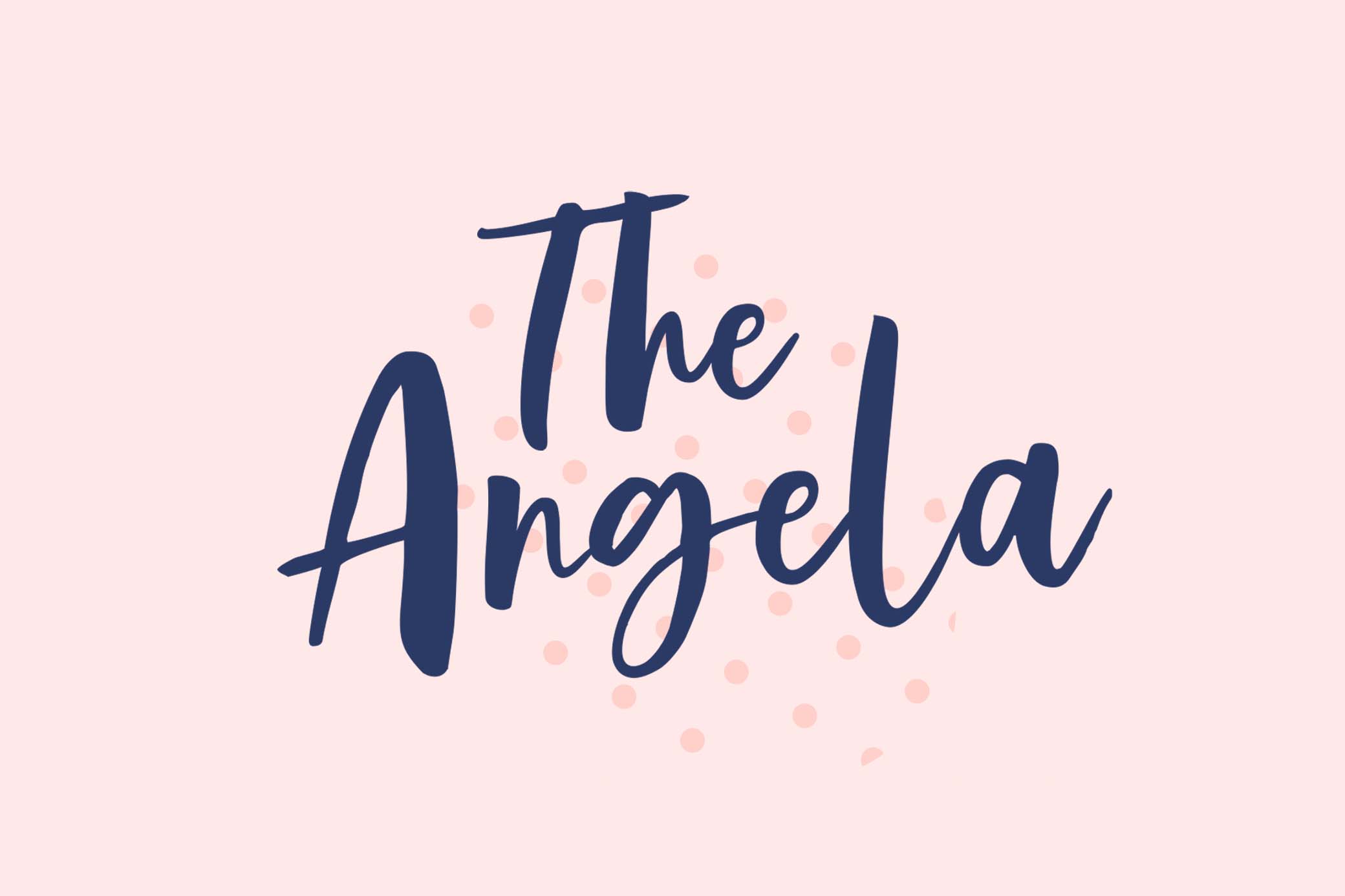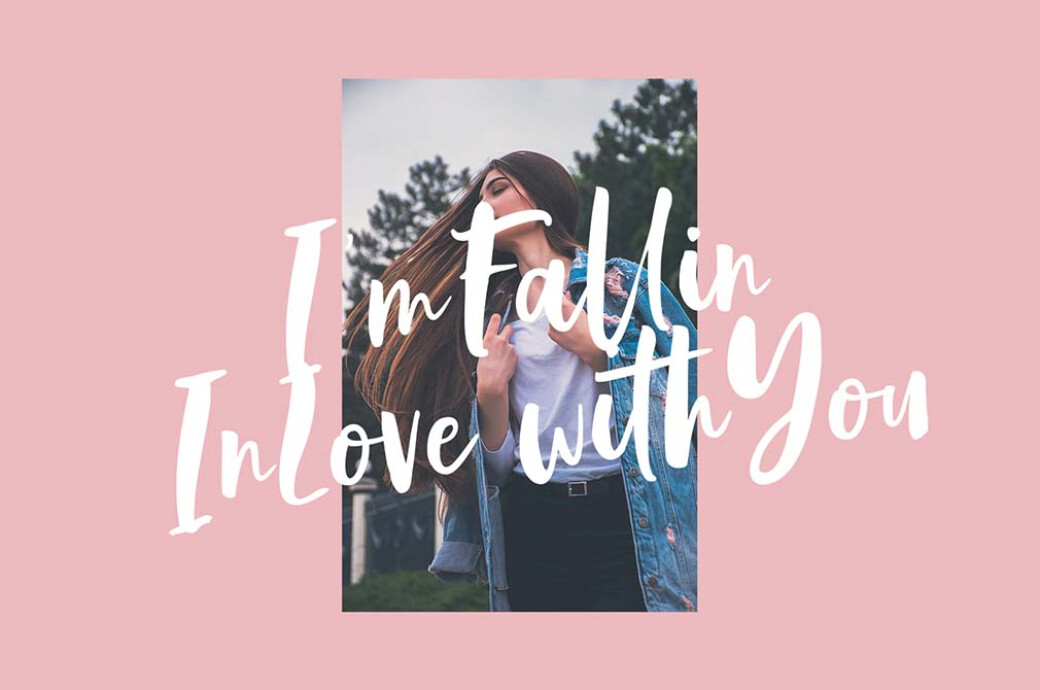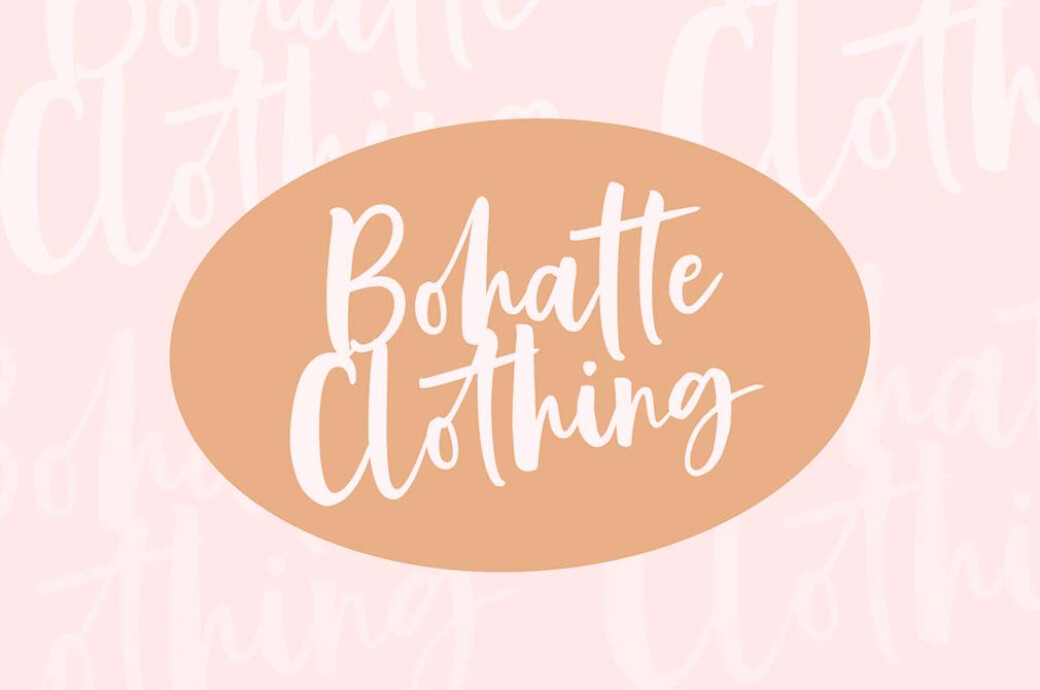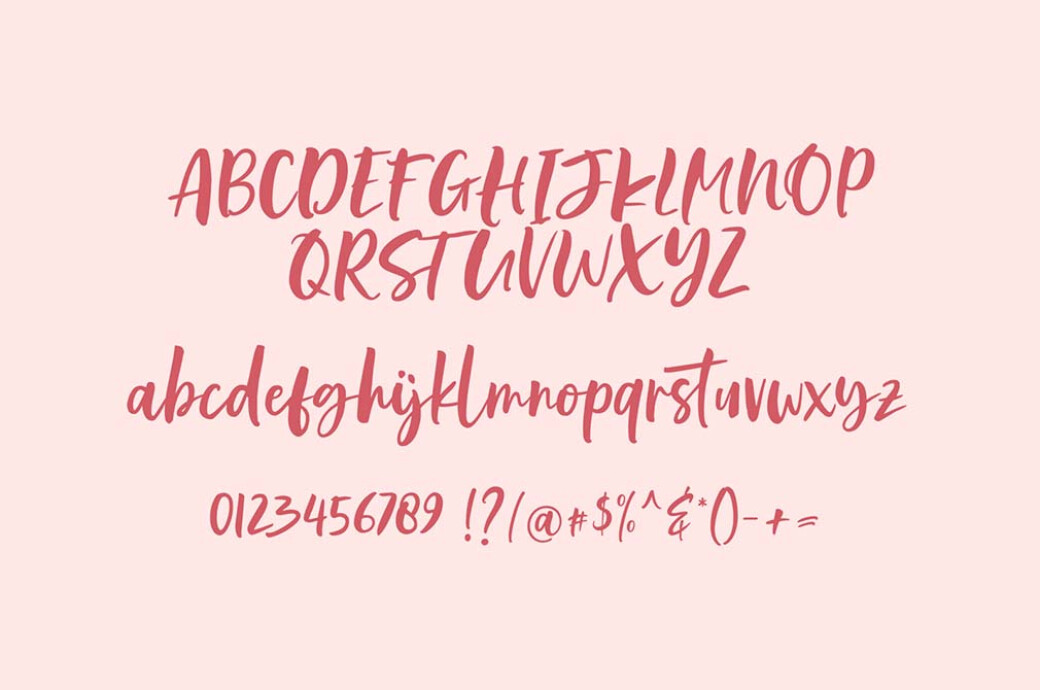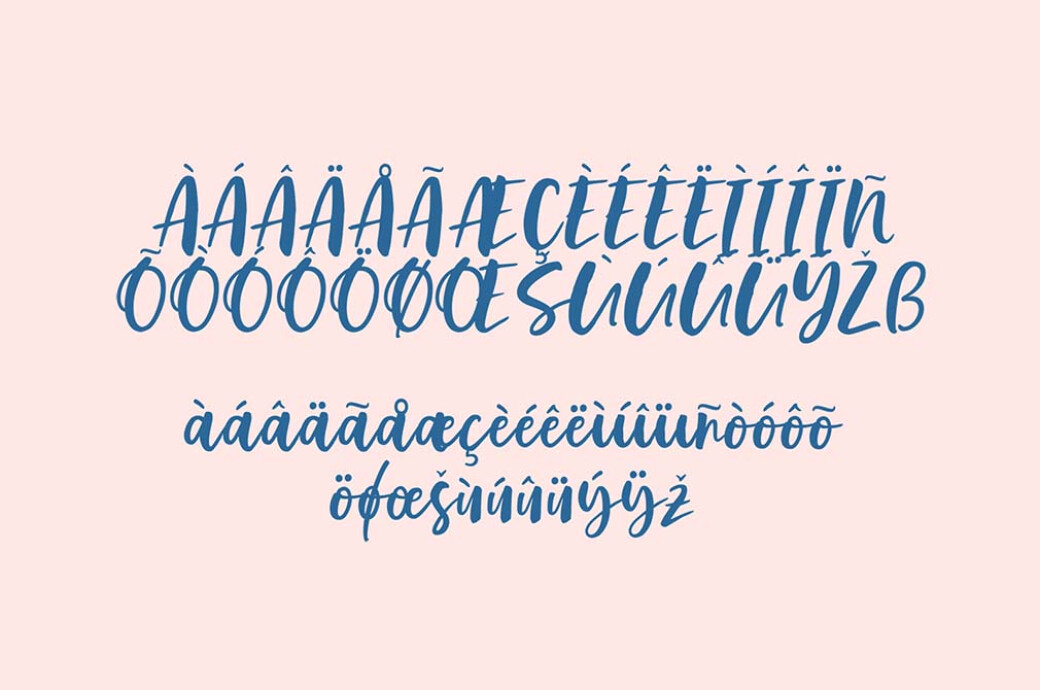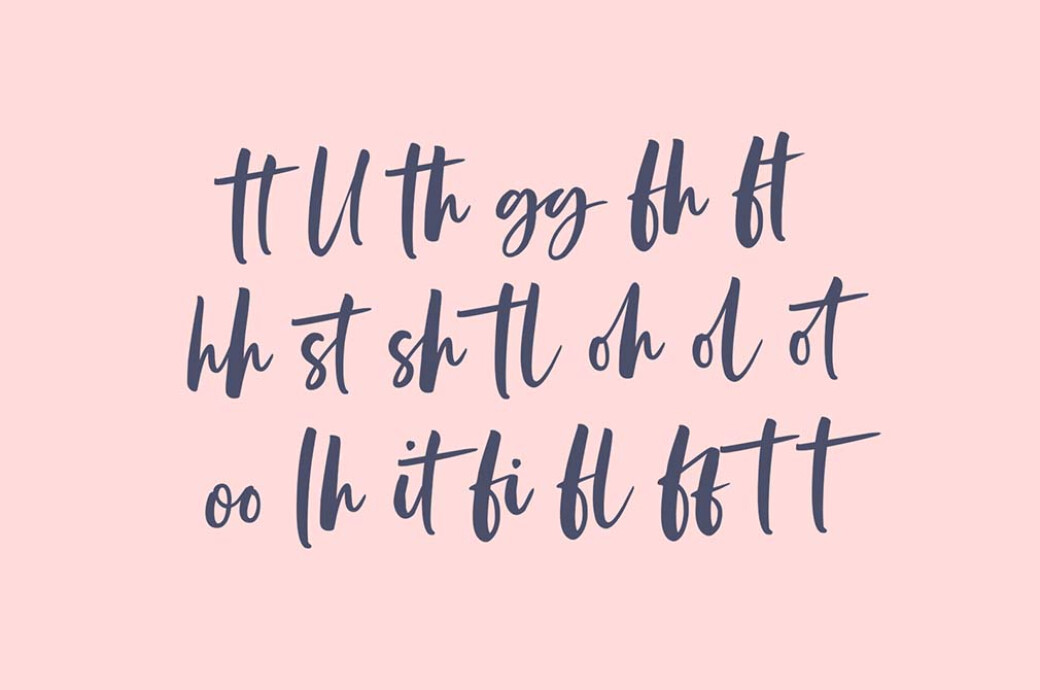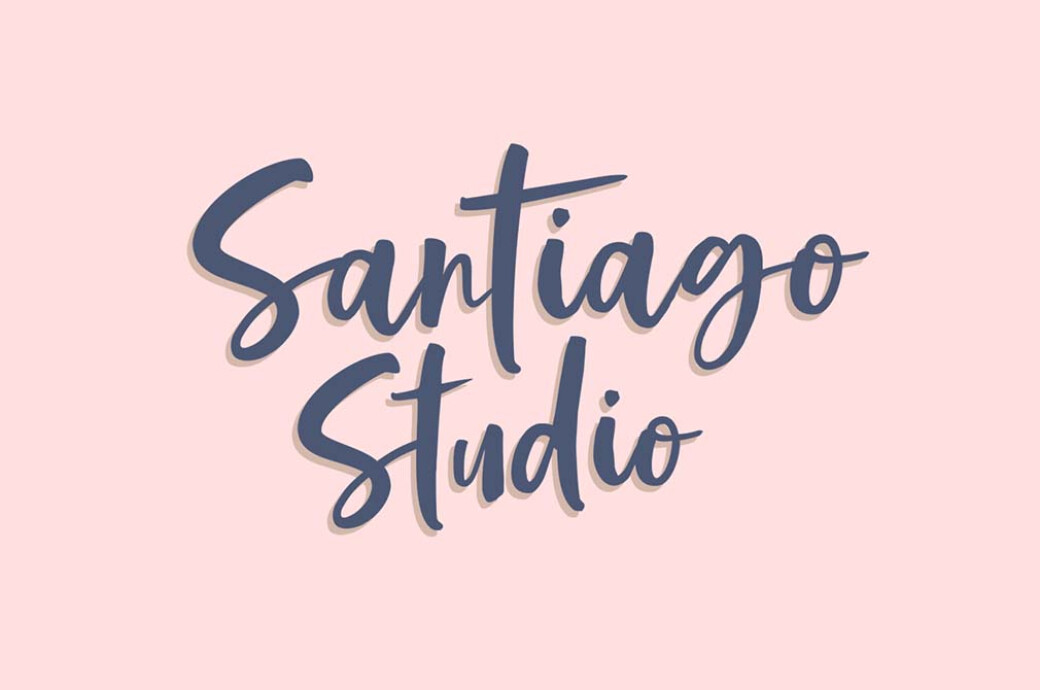
The Angela Script Font
It doesn’t matter what is the weather outside your window, with this script font you’ll feel the spring breath inspiring you on the most sophisticated designs!The Angela font is the embodiment of the excitement we get with the first sunbeams after the long cold winter. With its elegant yet quirky letters, this script will refresh your posters, greeting cards and other works and give them a refind look. The set of ligatures included will help you add a personal touch to the picture, making it complete and clean.